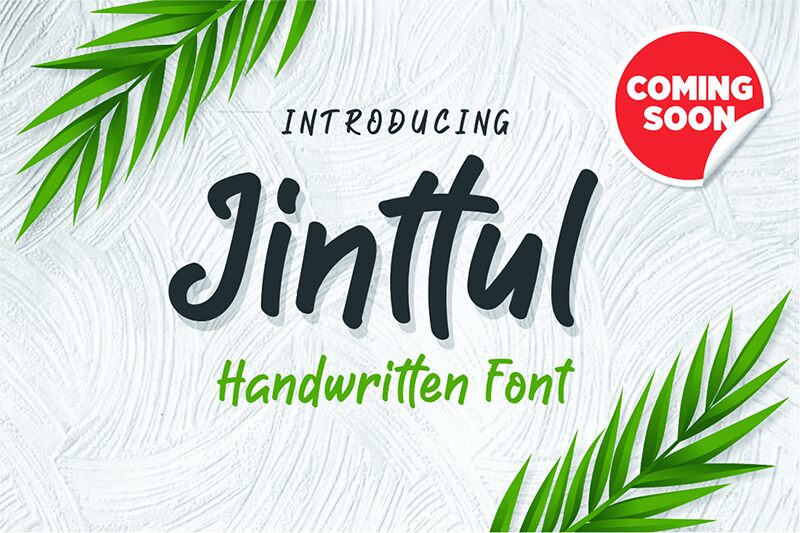
Jinttul, a captivating handwritten font designed by Ahmad Sekhudin, adds an artistic touch to any project. With its unique strokes and authentic feel, this font brings a sense of creativity and elegance to various design projects. Perfectly suitable for branding materials like logos and packaging, Jinttul also shines in invitations, greeting cards, and social media graphics. Whether aiming for a modern or vintage aesthetic, this semi-bold typeface effortlessly captures attention and conveys a distinctive vibe. Let Jinttul elevate your designs with its whimsical charm and make an unforgettable impression across diverse creative endeavors.